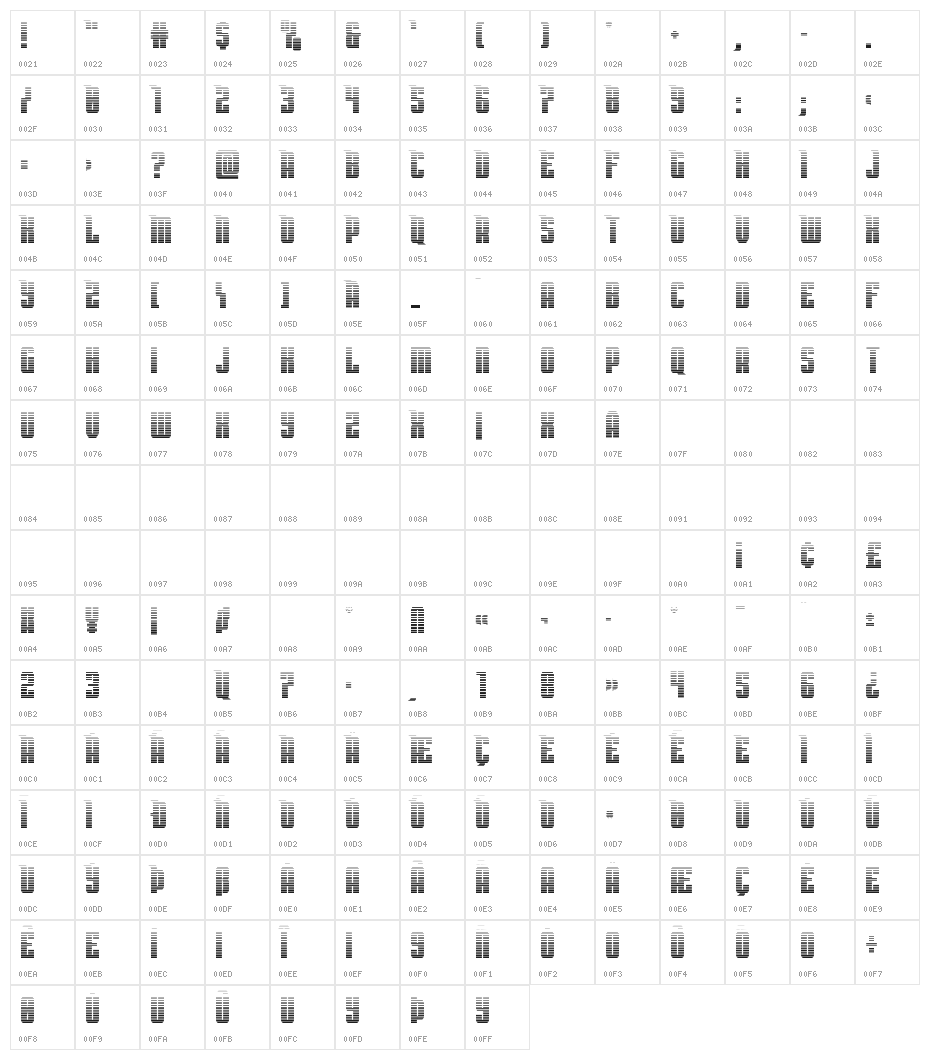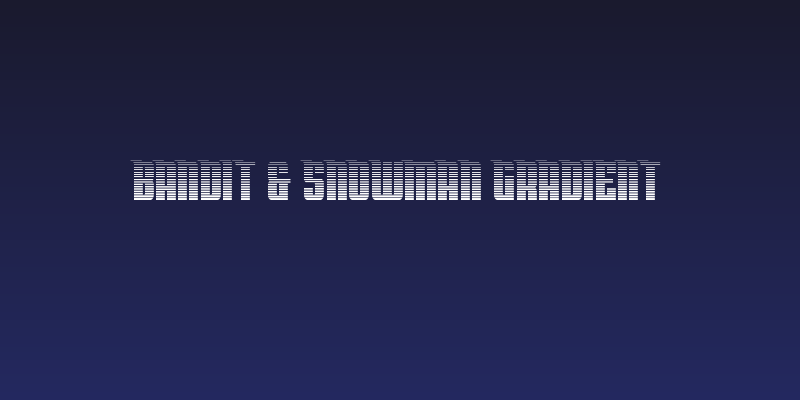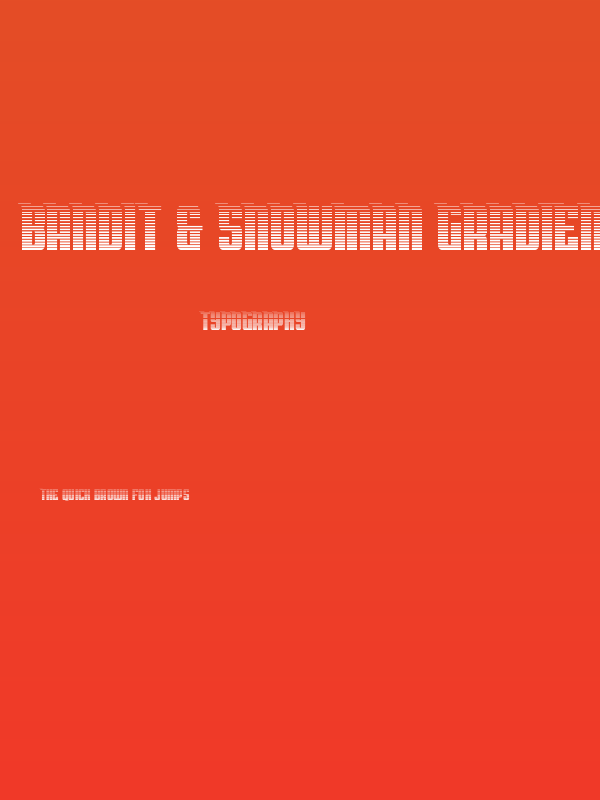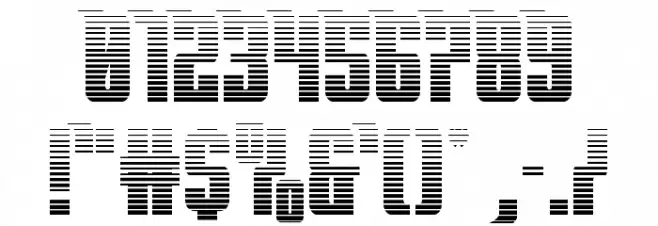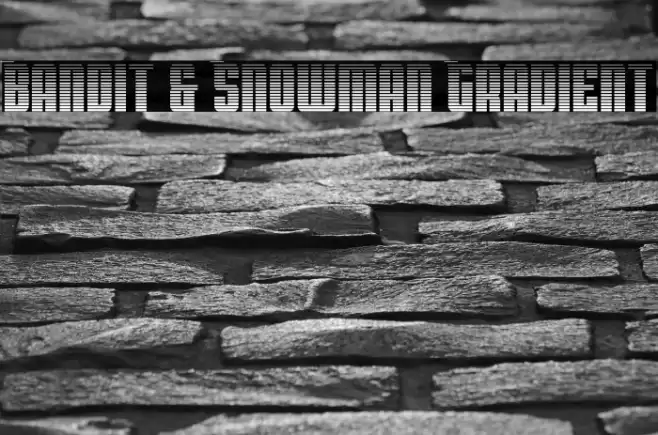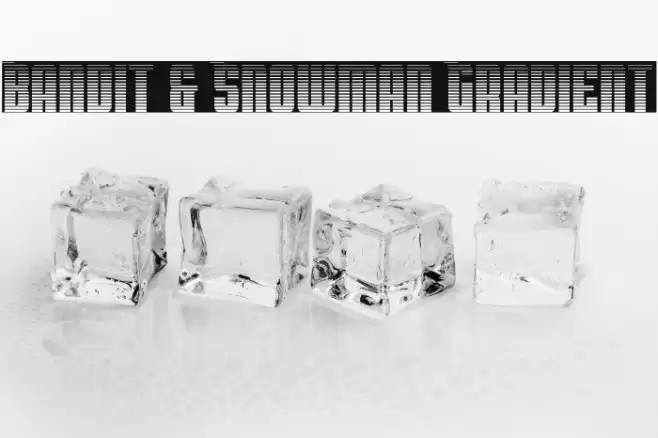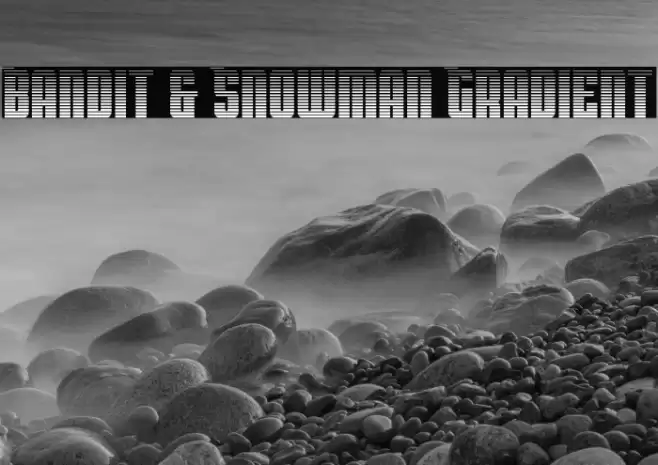
Bandit & Snowman Gradient Font
Bandit & Snowman Gradient Description
This font features a bold, decorative style with a unique gradient effect that gives each character a layered, three-dimensional appearance. The uppercase and lowercase letters, along with numbers and special characters, are designed with horizontal lines that create a striking visual impact. The font's geometric structure and sharp edges contribute to its modern and edgy look, making it stand out in any design. The consistent line thickness across characters ensures a uniform appearance, while the gradient adds depth and interest. This font is ideal for projects that require a bold statement and a contemporary aesthetic.
| Proposed Projects | Ideal for posters, headlines, logos, and branding materials that require a modern and eye-catching design. |